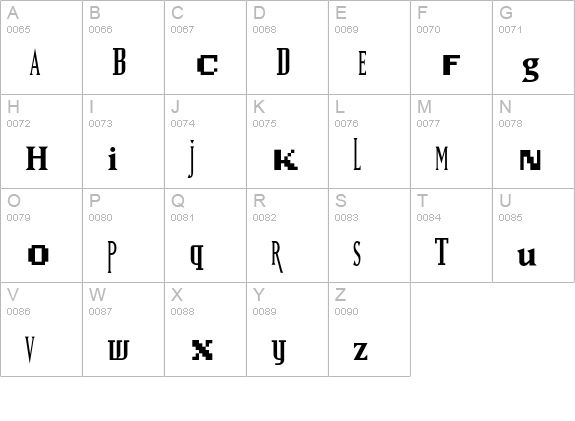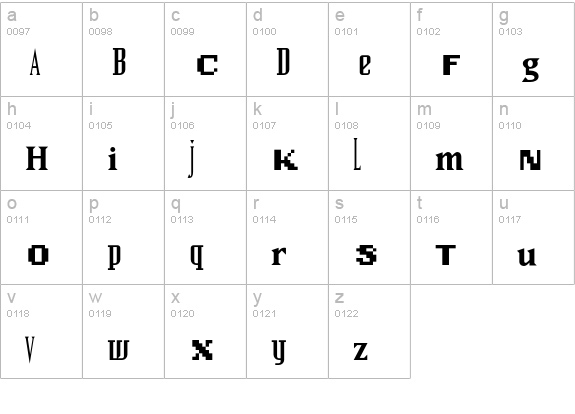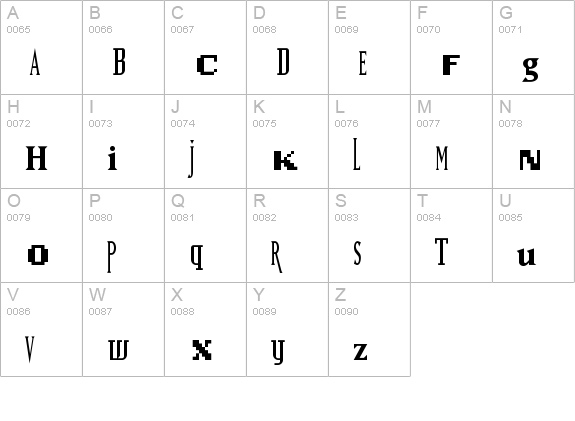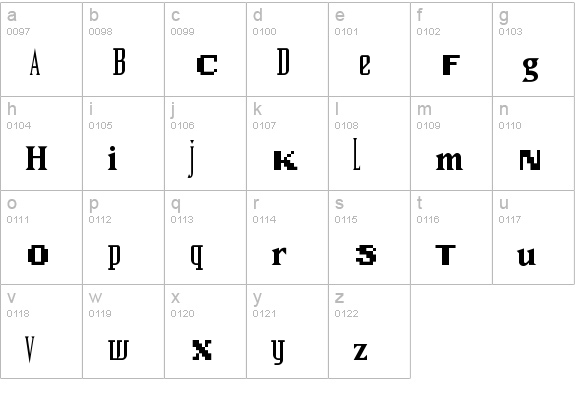
Sample font is a beautifully crafted typeface that is sure to make your designs stand out. With its sleek and modern design, this font is perfect for any project, from branding and advertising to web design and print materials. Its unique characters and smooth curves give it a distinct personality that is both professional and playful. But what makes this font even more appealing is that it is completely free! That's right, you can download Sample font at no cost from FontsMarket.com. This means you can use it in your personal and commercial projects without having to worry about any licensing fees. Whether you're a graphic designer looking to add a touch of elegance to your next project or a business owner in need of a versatile font for your branding, Sample font is the perfect choice. Its wide range of weights and styles allow for endless possibilities, giving you the freedom to create eye-catching designs that leave a lasting impression. So why wait? Head over to FontsMarket.com and download Sample font today. With its combination of beauty, versatility, and affordability, you won't find a better option out there. Don't miss out on this amazing opportunity to enhance your designs with a high-quality, free font.